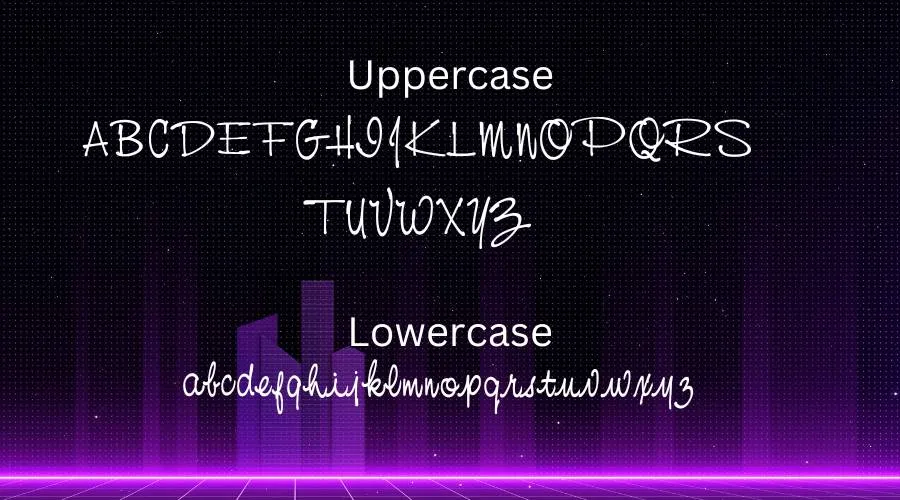
Nevison Font
About Nevison Font
Unidaas created an amazing style called Nevison Font. You can use it for posters, logos, logotypes, insignia, storefronts, t-shirt designs, labels, flags, magazines, and other vintage design projects. There is no doubt that this is a stunning font.
An elegant and highly detailed font, this is a great choice. The font contains all glyphs and swashes in PUA-encoded format, so you can access them easily. Many official projects are best suited for this stunning font. Designers love this international font.
This is an elegant, flowing font with a delicate feel. It matches a wide range of designs due to its beautiful and well-balanced characters.
There are beautiful glyphs, smooth lines, and stunning alternates in a font. Discover how it can help you realize your most creative ideas.